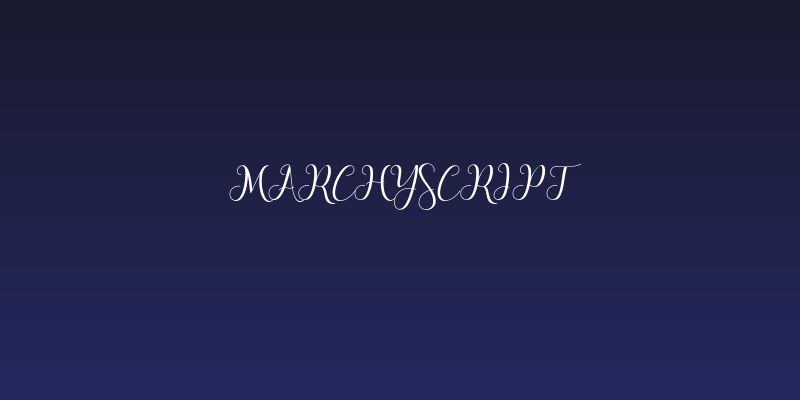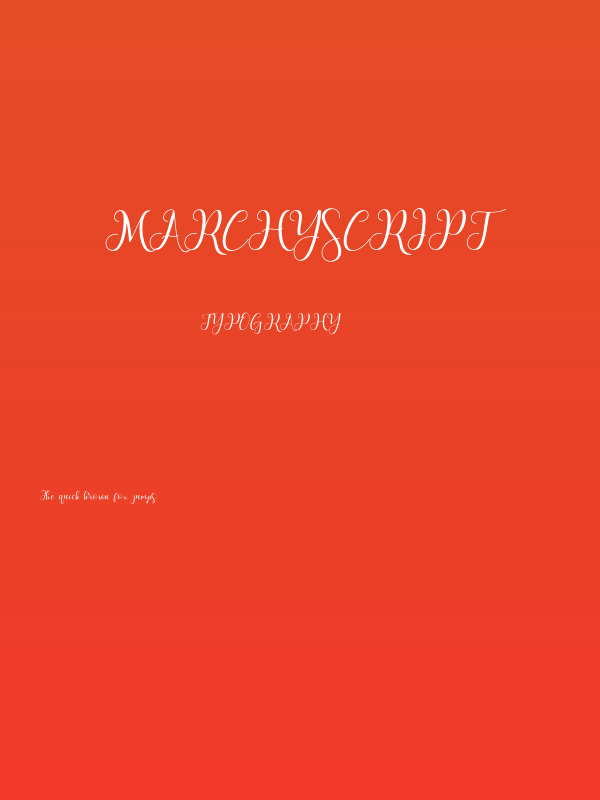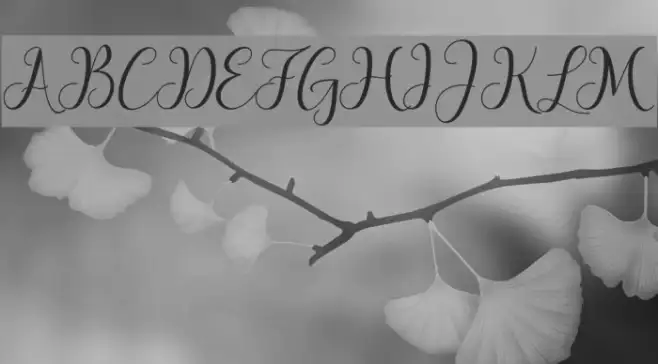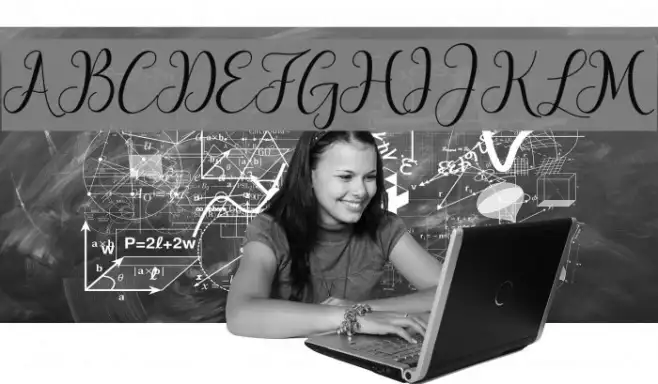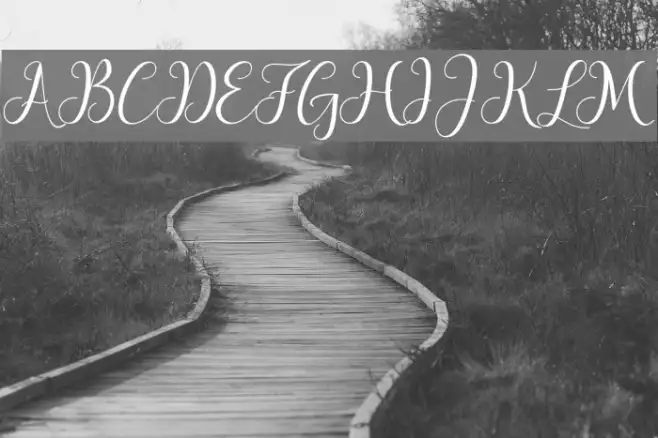
MarchyScript Font
MarchyScript Description
This font features an elegant and flowing script style, characterized by its smooth, cursive lines and graceful curves. The uppercase letters are ornate with extended flourishes, while the lowercase letters maintain a consistent, connected flow, enhancing readability. The font exudes a sense of sophistication and charm, making it ideal for formal invitations, branding, and decorative purposes. Its delicate strokes and artistic flair add a touch of elegance to any design, while the special characters complement the overall aesthetic with their stylish and cohesive appearance.
| Use Case | Invitations, Branding, Decorative text |
| Proposed Projects | Ideal for wedding invitations, elegant branding, greeting cards, and decorative signage. |